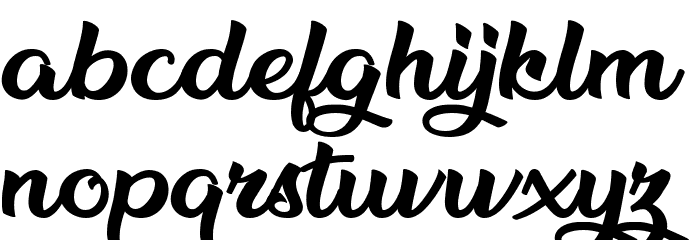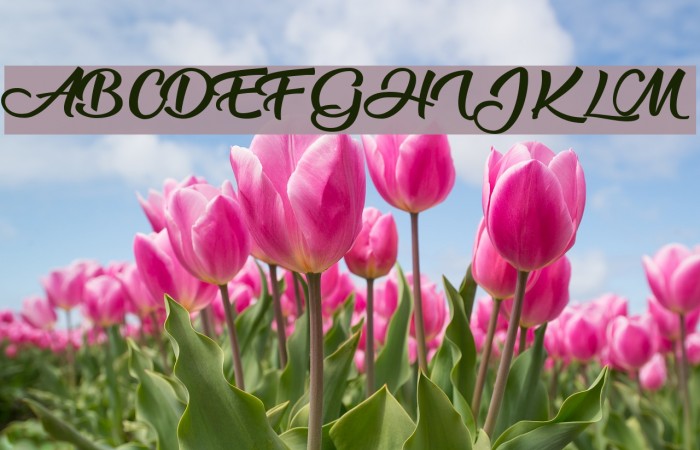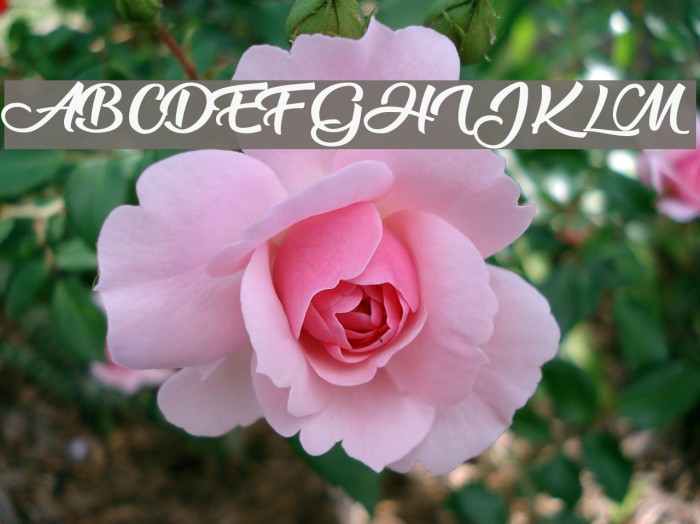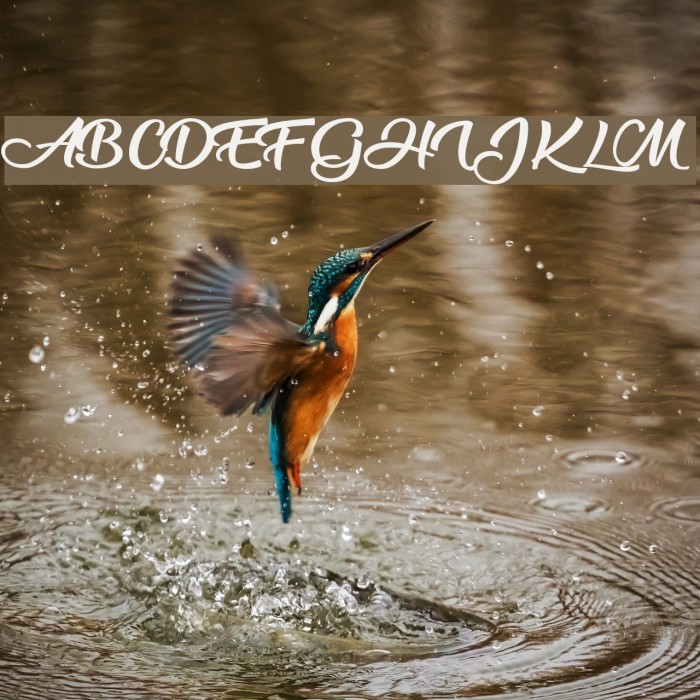
Blackberry Jam Personal Use Font
This font features a bold and flowing script style, characterized by its elegant and cursive letterforms. The uppercase letters are particularly ornate, with sweeping lines and flourishes that give a sense of movement and grace. The lowercase letters maintain a consistent style, offering a harmonious blend of curves and loops. The font's overall appearance is both stylish and sophisticated, making it suitable for a variety of creative projects. Its bold weight ensures strong visibility, while the intricate details add a touch of luxury and refinement.
A bold, elegant script font with flowing, cursive letterforms.
- Proposed Projects: Ideal for wedding invitations, branding, logo design, and elegant stationery.
- Category: Script
- Overall Style: Elegant, Decorative
- Use Case: Logos, Invitations, Branding